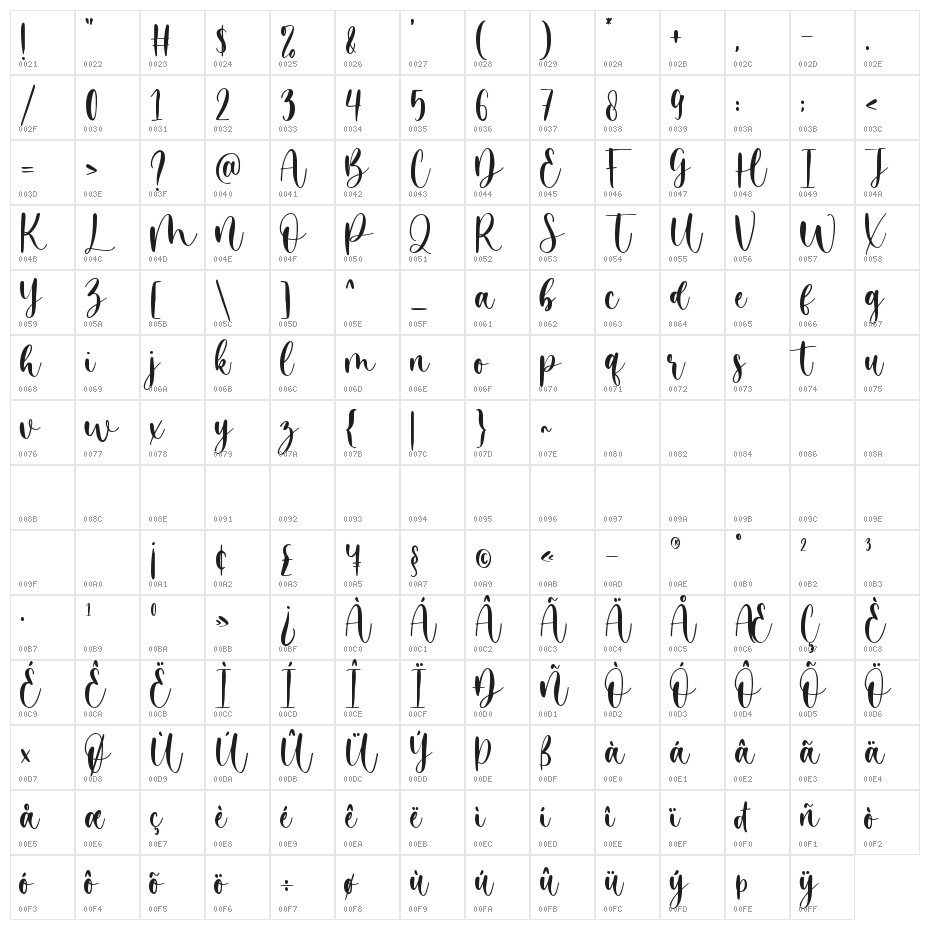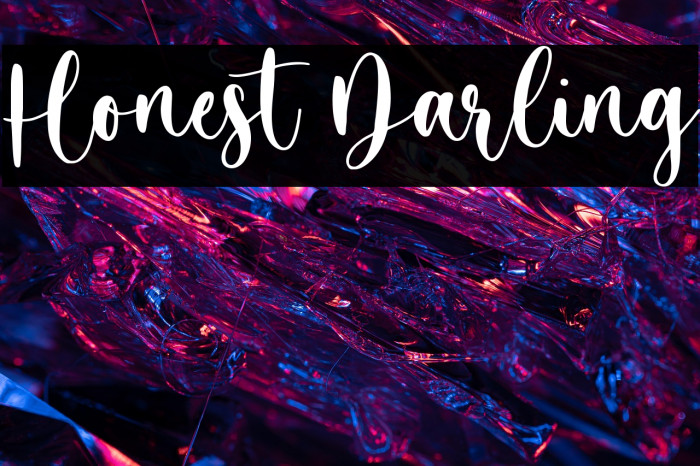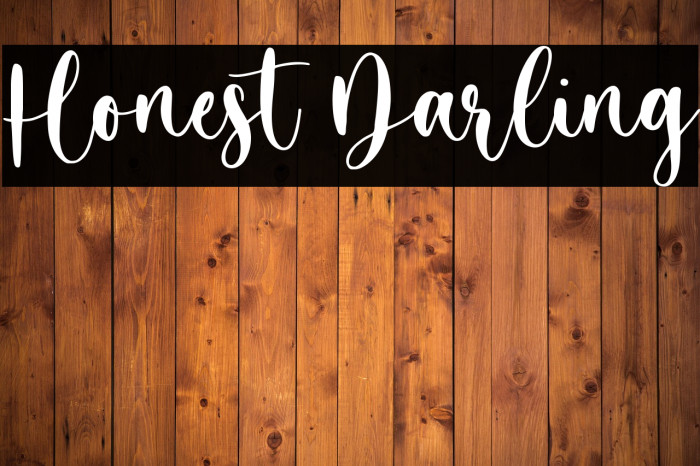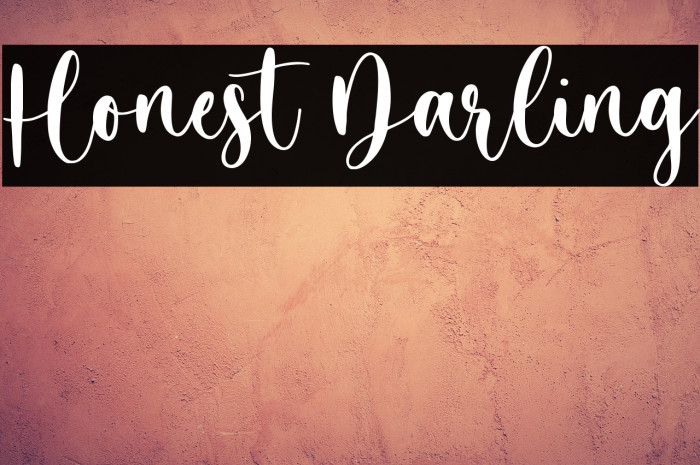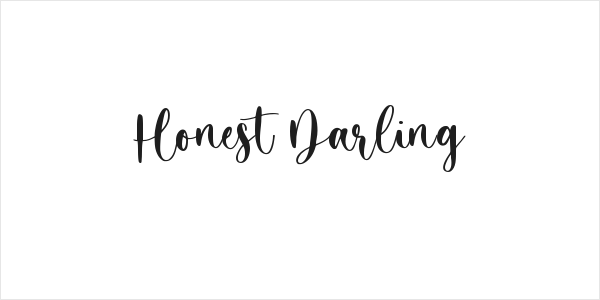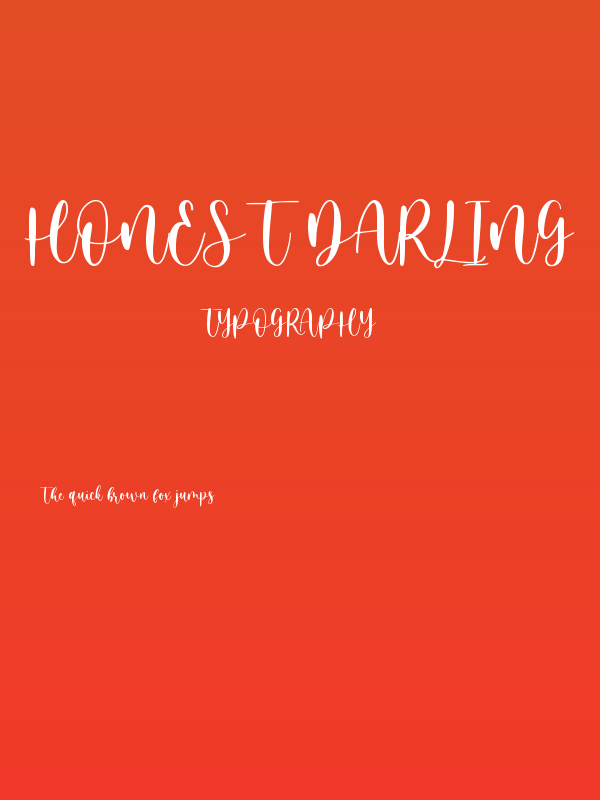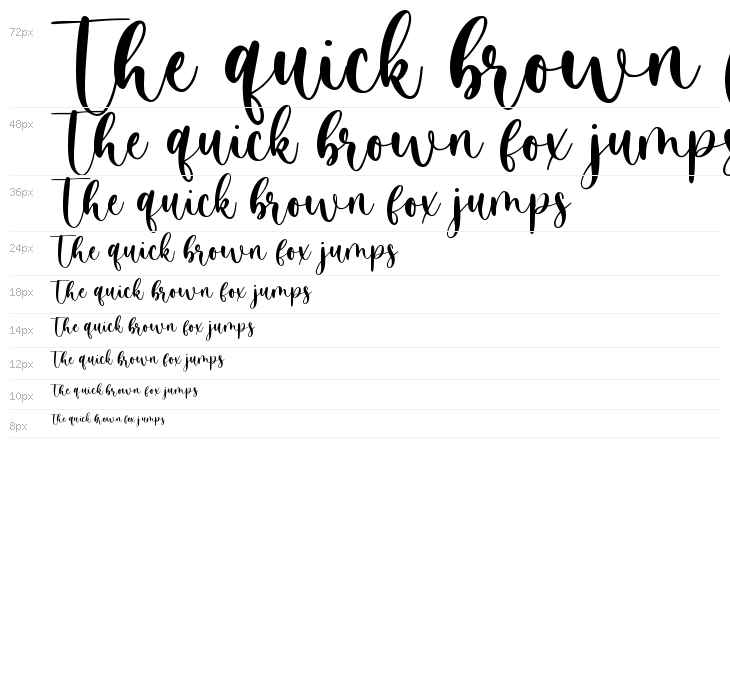
Honest Darling Font
Honest Darling Description
This font exudes a playful and elegant charm with its flowing, cursive style. The letters are interconnected, creating a seamless and fluid appearance. The strokes vary in thickness, adding a dynamic and lively feel to the text. The uppercase letters are bold and prominent, while the lowercase letters maintain a consistent, graceful flow. The numerals and special characters are designed to match the overall aesthetic, ensuring a cohesive look across all elements. This font is perfect for projects that require a touch of sophistication and whimsy.